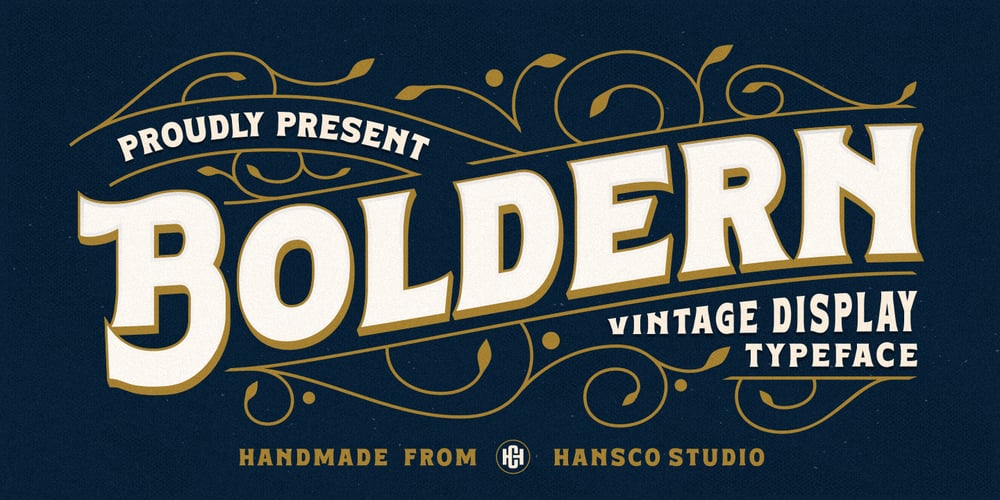
Boldern Font Family was designed by Burhan Afif and published by HansCo. Boldern contains 1 styles and family package options. Boldern is a Vintage typeface font, it will add an old-time charm to any design project. Our vintage font is the perfect companion for your creative journey. Features : Uppercase & Lowercase Numbers & Punctuation Multilingual Alternate character & ornament How to access alternate / ornament ? : https://hanscostudio.com/tutorial/Enjoy!